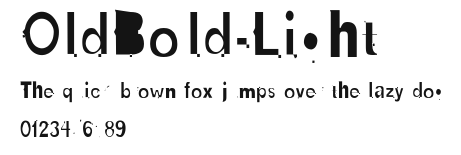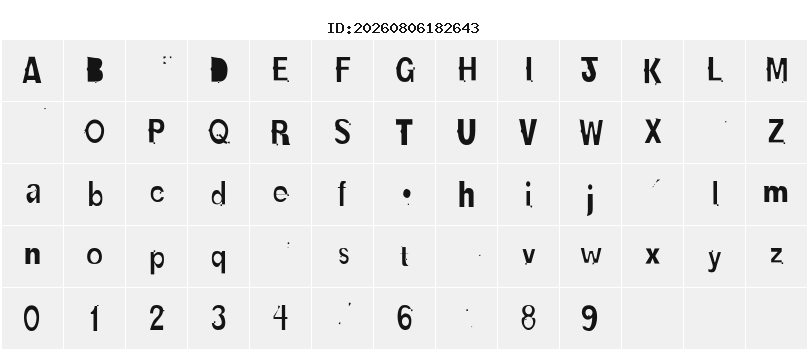
• Font Name: OldBold-Light
• Full Font Name: OldBold-Light
• PostScript Name: OldBold-Light
About OldBold-Light.ttf
OldBold-Light.ttf is a modern, elegant sans-serif font designed for ultimate readability and visual harmony. Perfect for branding, headlines, web design, and print materials.